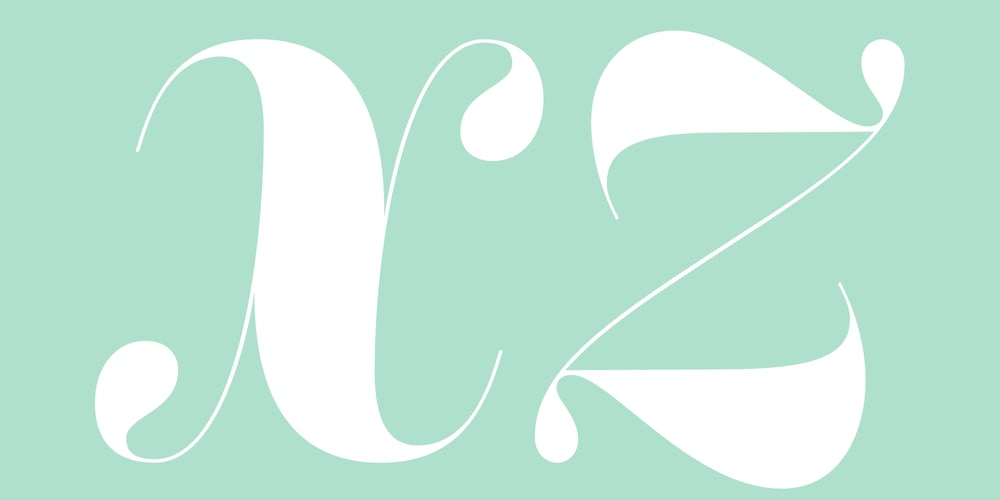
Keiss Condensed Big Font Family was designed by Dino dos Santos and published by Monotype. Keiss Condensed Big contains 5 styles and family package options. The Keiss type family is our interpretation of the popular nineteen century Scotch Roman typefaces. We intended to keep a very classic approach while introducing a couple of new elements that differentiate this type family from it’s ancestors. This design, with short descenders and ascenders, along with three very distinct optical sizes makes this type family well suited for contemporary newspapers. The Title and Big versions range from Thin to Heavy, with matching italics, in order to be used in big sizes and stand out in the design. The Text ranges from Thin to ExtraBold and is a standalone type family for text usage, with narrow proportions and wider and open italics for improved text setting. The Condensed versions, ranging from Thin to Bold, don’t have italics, although they can be matched with the italics of the Title and Big versions, due to the fact they are very condensed.